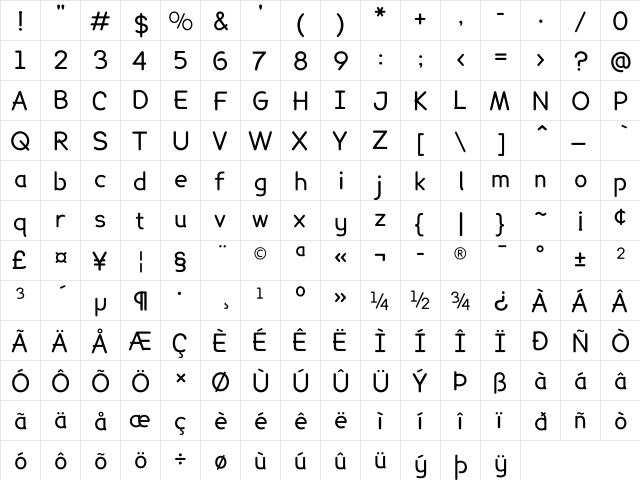
Lexia Readable Regular
| Designer | Keith Bates |
| Copyright | Lexia Readable (version 5.1) by Keith Bates -Type 2004, 2015 https://www.k-type.com  The Lexia Readable family is designed for maximum legibility, a grown-up's Comic Sans that's clear and accessible. |
Design Context for Lexia Readable Typeface
Lexia Readable takes a measured approach to typography — its balanced proportions and neutral character make it a reliable workhorse for both digital and print work.